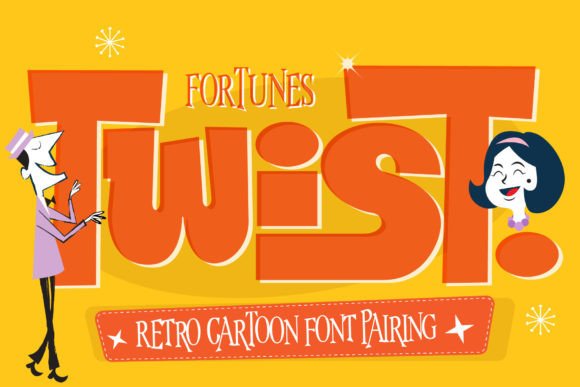
Looking for the best font for research posters? Look no further than Fortunes Twist Font, the perfect addition to any design project that needs a playful and whimsical touch. Created by ramandhaninugraha, this display font family is sure to make a statement with its quirky letterforms and bulky design.
With Fortunes Twist Font, your designs will stand out from the crowd, adding a cheerful and lively energy that is sure to capture attention. Whether you are creating a logo, poster, or packaging design, this font is versatile enough to be used in a variety of projects.
Not only is Fortunes Twist Font eye-catching and fun, but it is also easy to read, making it perfect for research posters and other designs that require clear and concise typography. This font will elevate your design to new heights, showcasing your creativity and attention to detail.